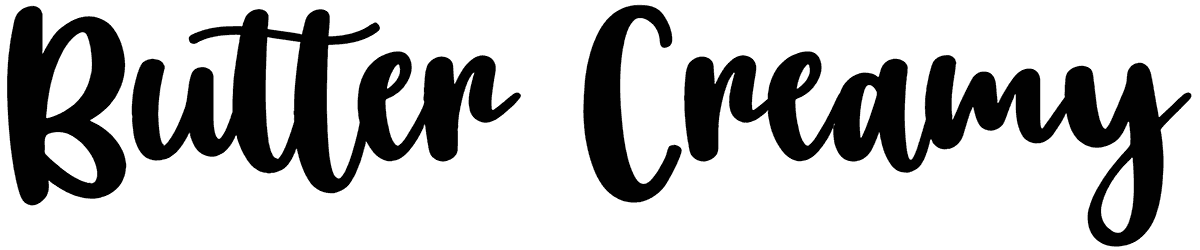
Butter Creamy Font
What item can be better than a handwritten font in conveying a friendly and realistic feeling? This ice cream font, with its smooth and natural form is able to do it well. Butter Creamy font has an almost full cover of characters, and you can easily use it to adorn a food truck with its appealing mood.